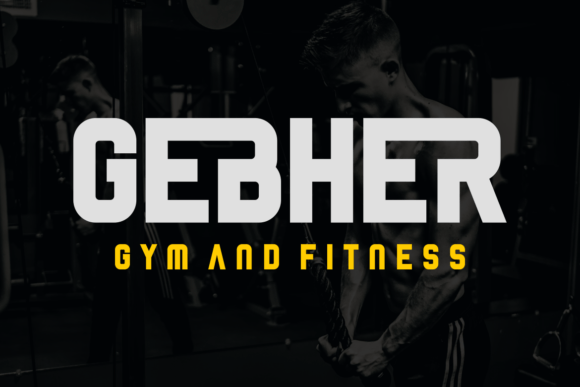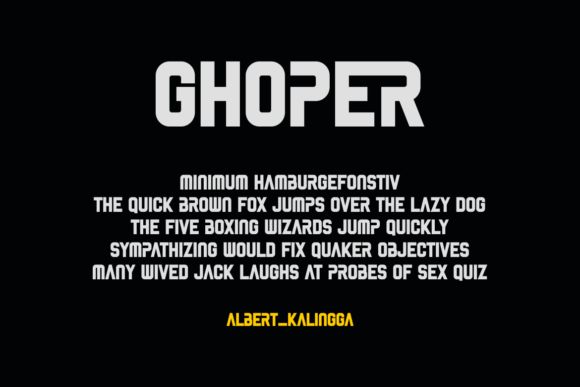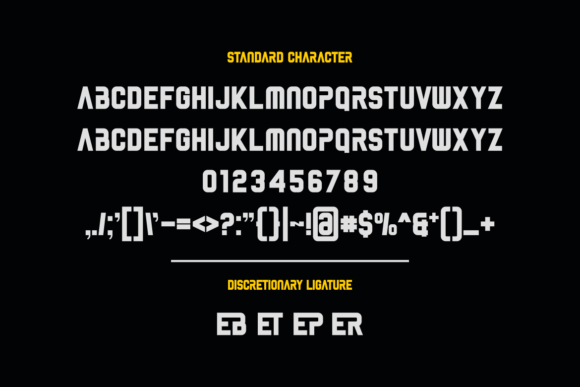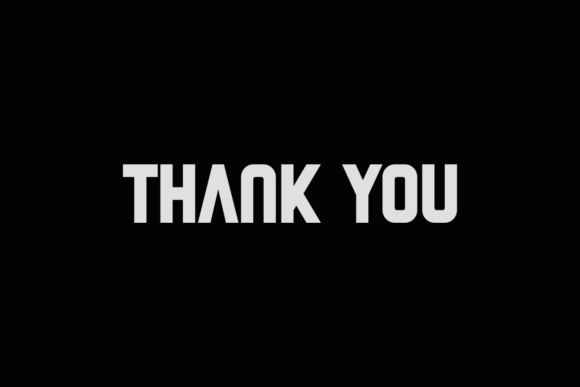
The Ultimate Design Game-Changer: Ghoper Font
I’ll never forget the time I was working on a project for a bold and edgy client, and I was struggling to find the perfect font to match their vibe. I had spent hours scouring the internet, trying out different fonts, but nothing seemed quite right. That was until I stumbled upon Ghoper Font. It was like a breath of fresh air – bold, assertive, and effortlessly cool. In this article, I’ll share my experience with Ghoper Font, and explore how it can elevate your designs, no matter the topic.
What I Love About Ghoper Font
- ✨ Bold and Assertive: Ghoper Font is not for the faint of heart. It’s loud, it’s proud, and it’s perfect for making a statement.
- ✅ Versatile: Whether you’re designing a logo, a poster, or a social media graphic, Ghoper Font adapts seamlessly to any context.
- 💡 Unique Personality: Ghoper Font has a distinct edge that sets it apart from other sans serif fonts.
While Ghoper Font is an amazing addition to any design library, it’s not perfect. Here are a few things to keep in mind:
- 🤔 Legibility at Small Sizes: Ghoper Font can be a bit tricky to read at very small sizes (e.g., below 10pt). Use it for headlines or titles, and pair it with a more traditional font for body text.
- ⚠️ Overuse: As with any bold font, be careful not to overuse Ghoper Font. Balance it with other design elements to avoid overwhelming your audience.
The Story Behind Ghoper Font
While the origins of Ghoper Font are shrouded in mystery, it’s said that the font was designed by a young typographer who wanted to create a bold and daring alternative to traditional sans serif fonts. Inspired by urban landscapes and modern architecture, Ghoper Font was born.
Q: What is the best use case for Ghoper Font?
A: Ghoper Font is perfect for designs that require a bold and assertive font, such as logos, posters, and social media graphics.
Q: Can I use Ghoper Font for body text?
A: While Ghoper Font is amazing for headlines and titles, it’s not ideal for body text. Pair it with a more traditional font for better readability.
Q: Is Ghoper Font suitable for digital designs?
A: Absolutely! Ghoper Font works beautifully for digital designs, from social media graphics to website headers.